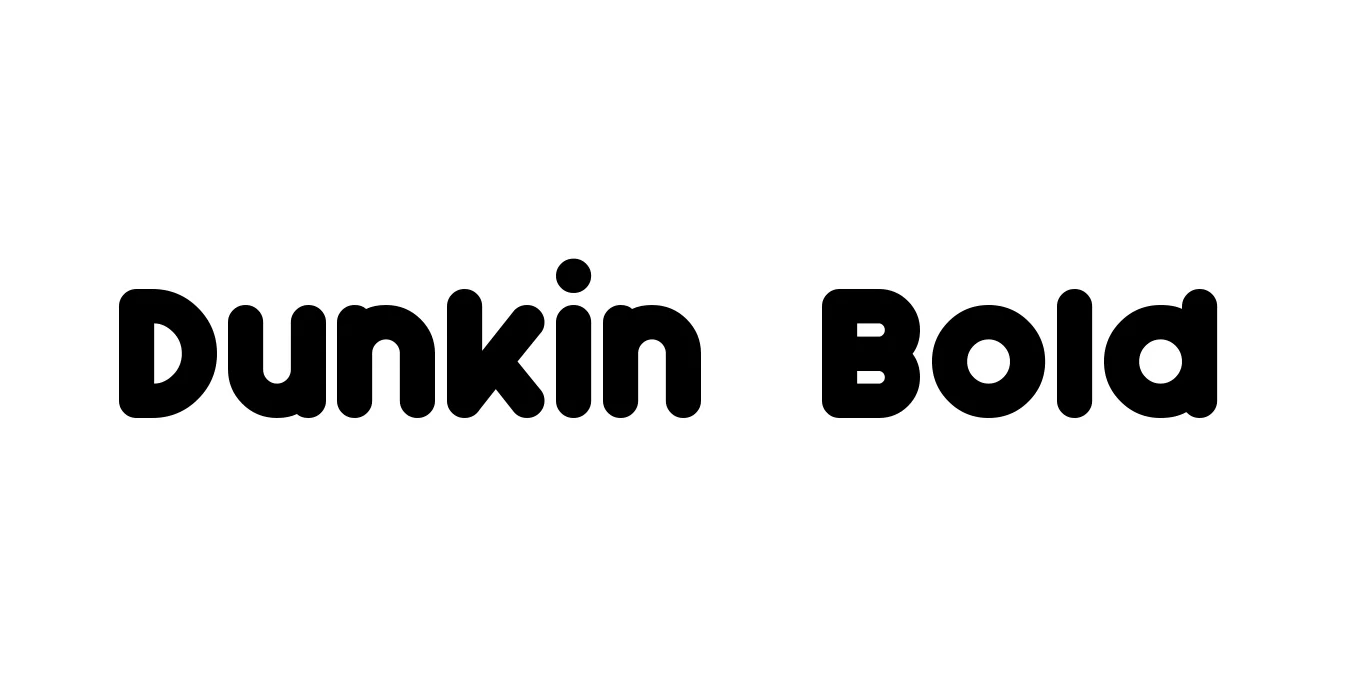
Dunkin Bold
Designed by Jones Knowles Ritchie & Colophon Foundry
| Font Name | Dunkin |
| Designer | Jones Knowles Ritchie & Colophon Foundry |
Dunkin Bold (part of the Dunkin' Sans family) was unveiled during the 2019 rebranding of the iconic American coffee and donut chain. Developed by the design agency Jones Knowles Ritchie in collaboration with Colophon Foundry, the font was created to modernize the brand's image while retaining its playful and energetic spirit. It captures the essence of the original 1970s Frankfurter-inspired lettering but optimizes it for digital and physical clarity across global markets.
The typeface is characterized by its heavy, rounded forms and chunky weight, which convey a sense of friendliness and approachability. Because of its massive visual weight and soft edges, it has become a staple for high-impact advertising and food industry branding. The bold geometry ensures that the text remains legible even in busy environmental signage and small-scale product packaging, making it a masterpiece of functional corporate identity.
Dunkin Bold Best Uses
Perfect for creating friendly and energetic brand logos.
Ideal for high-impact advertising headlines and promotional banners.
Excellent for bold product labeling that needs to stand out on shelves.